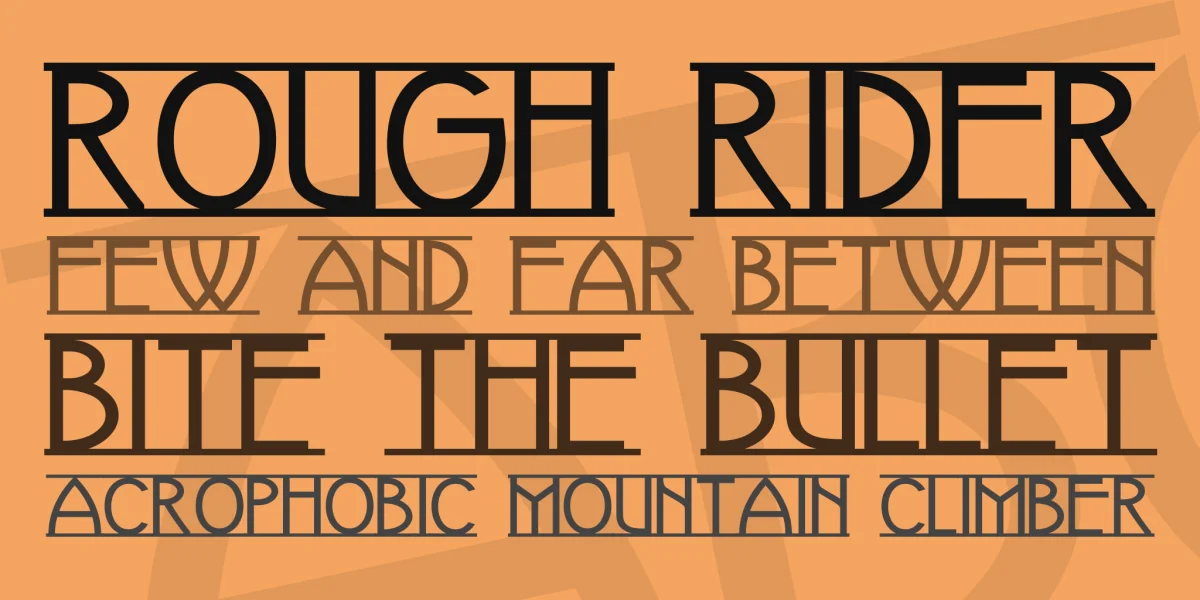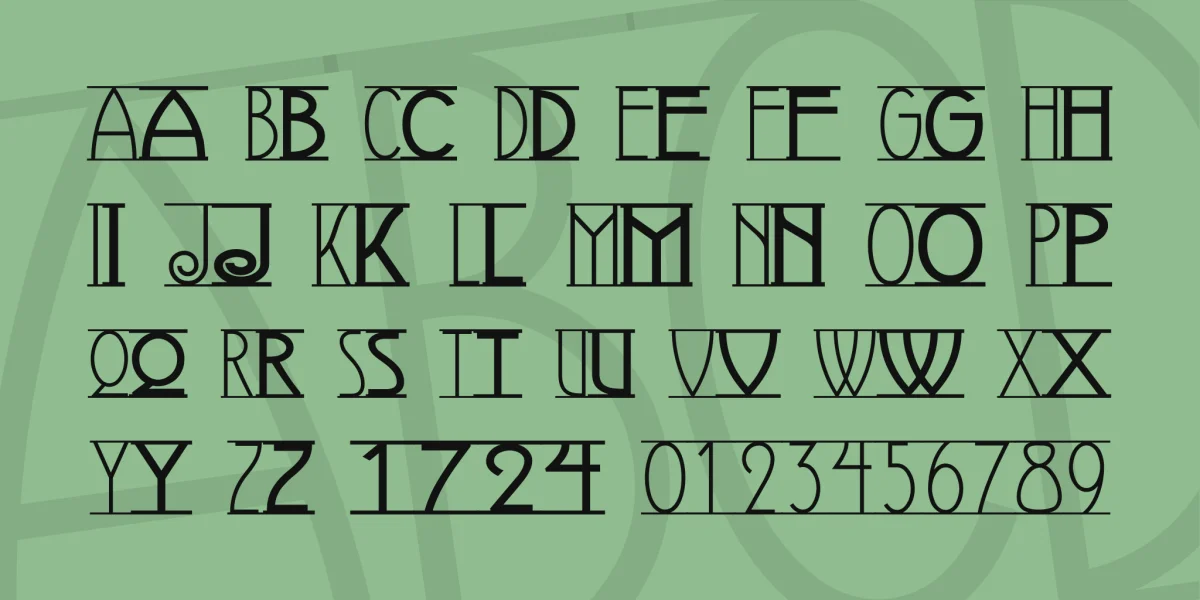
This font was inspired by an advertisement designed by A. Erdmann in 1920, reproduced to the right. The font consists of two complete alphabets and sets of numerals, as well as separate spaces, filigree elements and a very limited set of punctuation. The stroke width of the small size letters is twice that of the large size letters, so that when the small letters are set at one-half the point size of the large letters, their line weights appear to be identical. To the right are step-by-step instructions on how the graphic was produced.